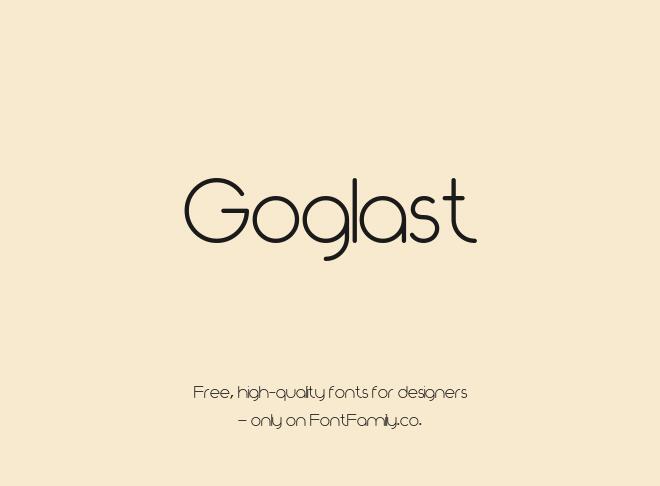
Goglast Font
Goglast Font is a modern and geometric display typeface with a distinctive character. Its clean lines and sharp edges make it a great choice for various design projects. Ideal for logos, headlines, posters, and branding, it provides a unique touch to your design. Goglast Font is comparable to Futura and Avant Garde, but it has its own unique features that set it apart. Its geometric construction gives it a solid, reliable feel, while its modern aesthetic makes it versatile and contemporary. With Goglast Font, you can create striking visuals that are sure to capture attention. This font is a great choice for designers looking for a modern, geometric typeface that is both versatile and unique.
Author | Goglast Foundry |